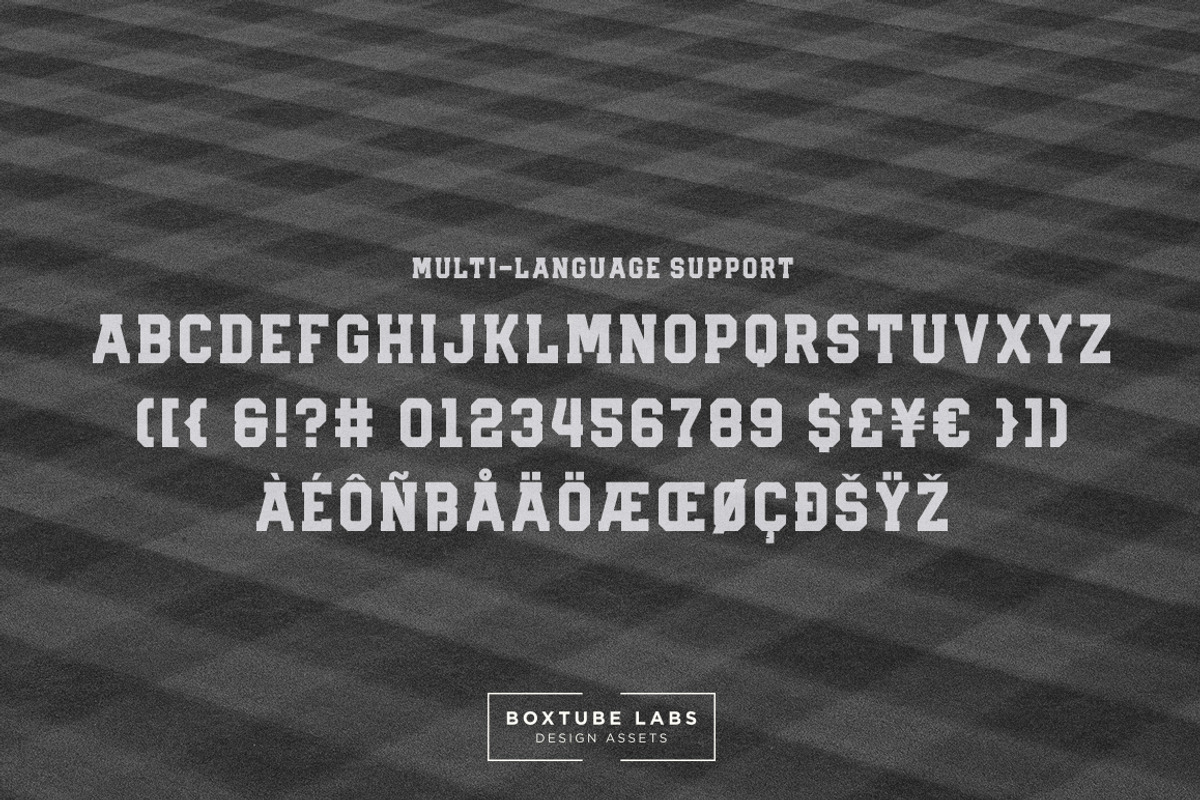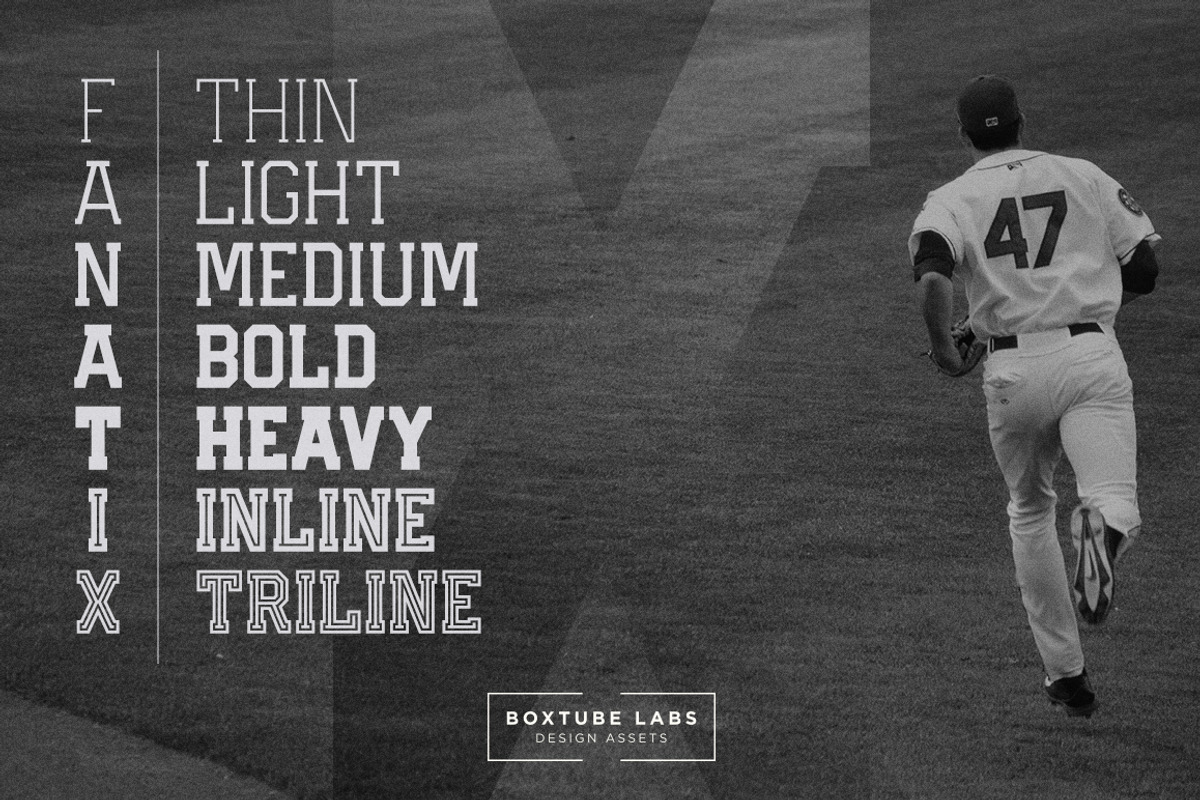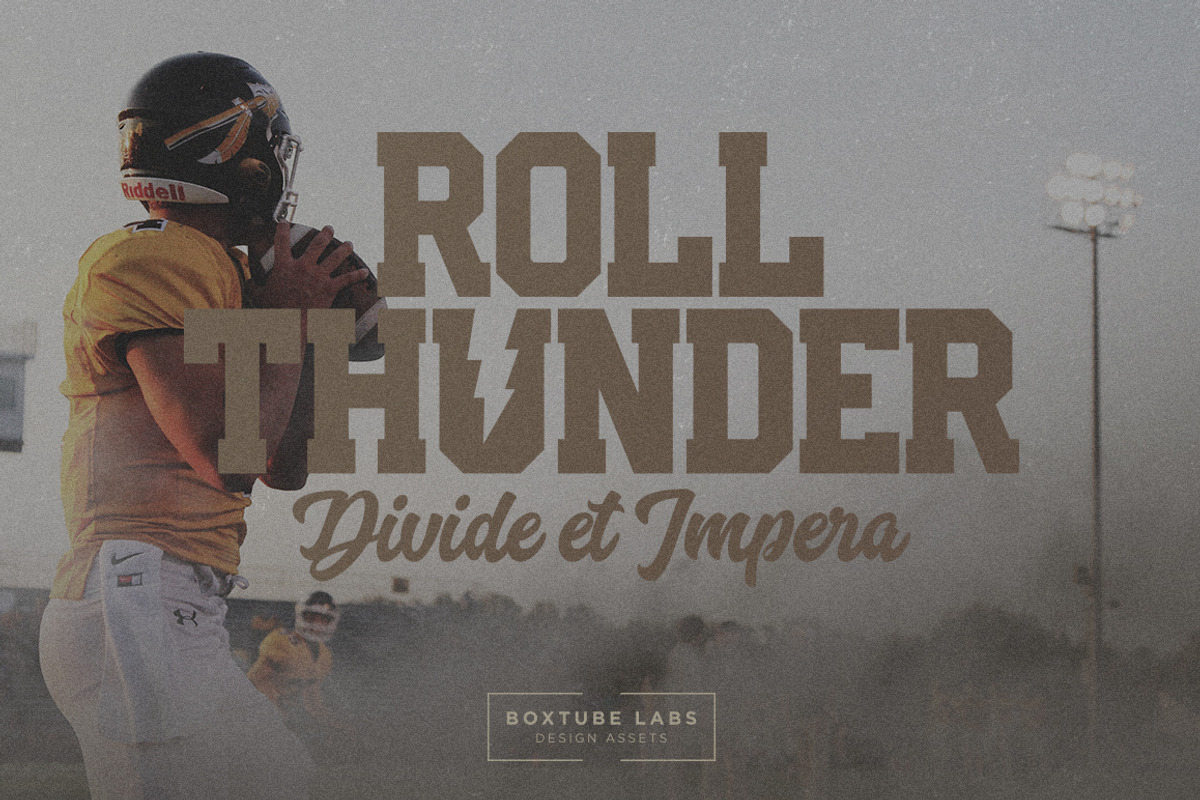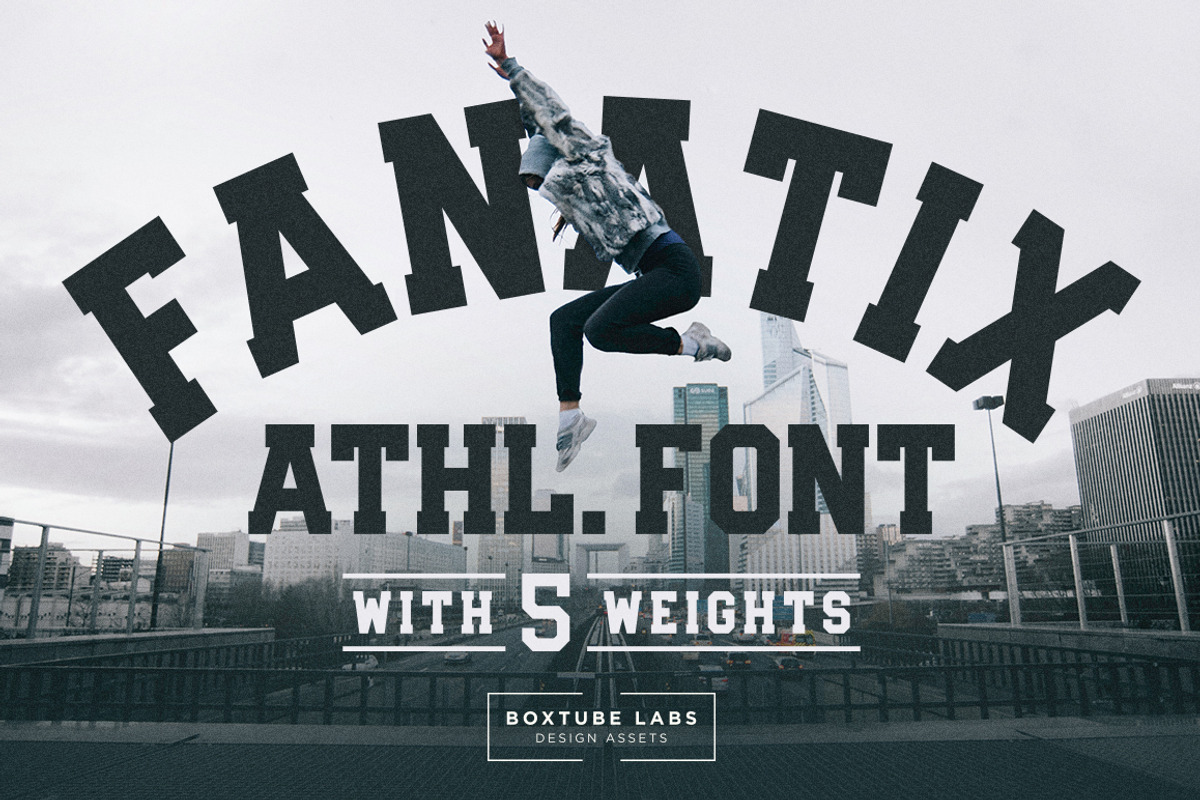
Fanatix - Display Font
Fanatix is a classic sports font family with a modern touch. With weights ranging from Thin to Heavy it's perfect for sports logos, branding, posters, apparel design and more. We have also added two creative styles, Inline and Triline, for instant uniqueness and variations to your workflow and final designs.
Fanatix has support for most western languages including: Afrikaants, Basque, Breton, Catalan, Danish, Dutch, English, Finnish, French, Gaelic, German, Icelandic, Indonesian, Irish, Italian, Norwegian, Portuguese, Sami, Spanish, Swahili and Swedish.